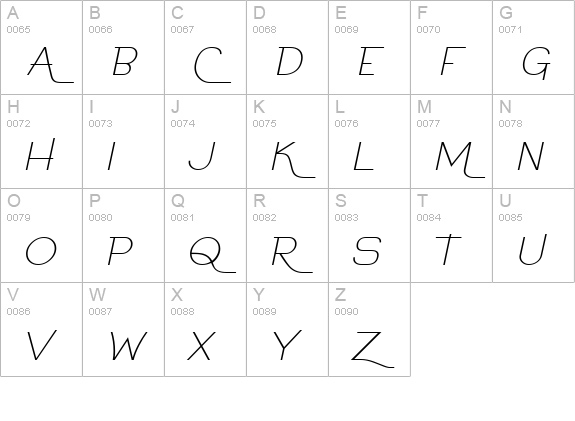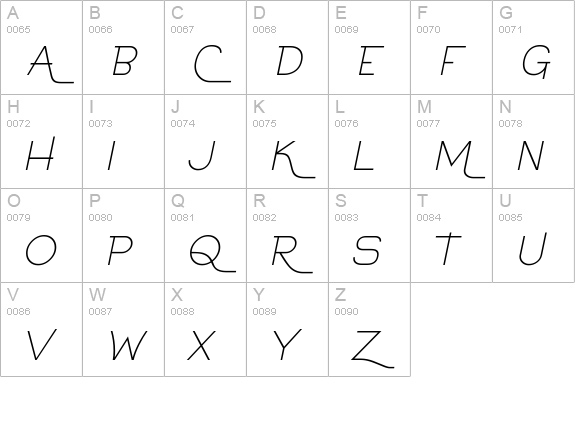
Calamity Teen BTN Lt Oblique is a distinctive, italic variant in the Calamity typeface family \xE2\x80\x94 well suited to design and typography projects.
Calamity Teen BTN Lt Oblique font is a stylish and playful typeface that exudes a sense of youthful energy and charm. With its slanted design and unique letterforms, this font is perfect for adding a touch of whimsy to any creative project. Whether you're designing posters, invitations, or social media graphics, Calamity Teen BTN Lt Oblique will make your text pop and stand out. The best part? This fantastic font is available for free download at FontsMarket.com. Simply visit the website to get your hands on this wonderful typeface and start using it in your designs today. Don't miss out on the opportunity to add a fun and eye-catching element to your work with Calamity Teen BTN Lt Oblique font - download it now and let your creativity shine!